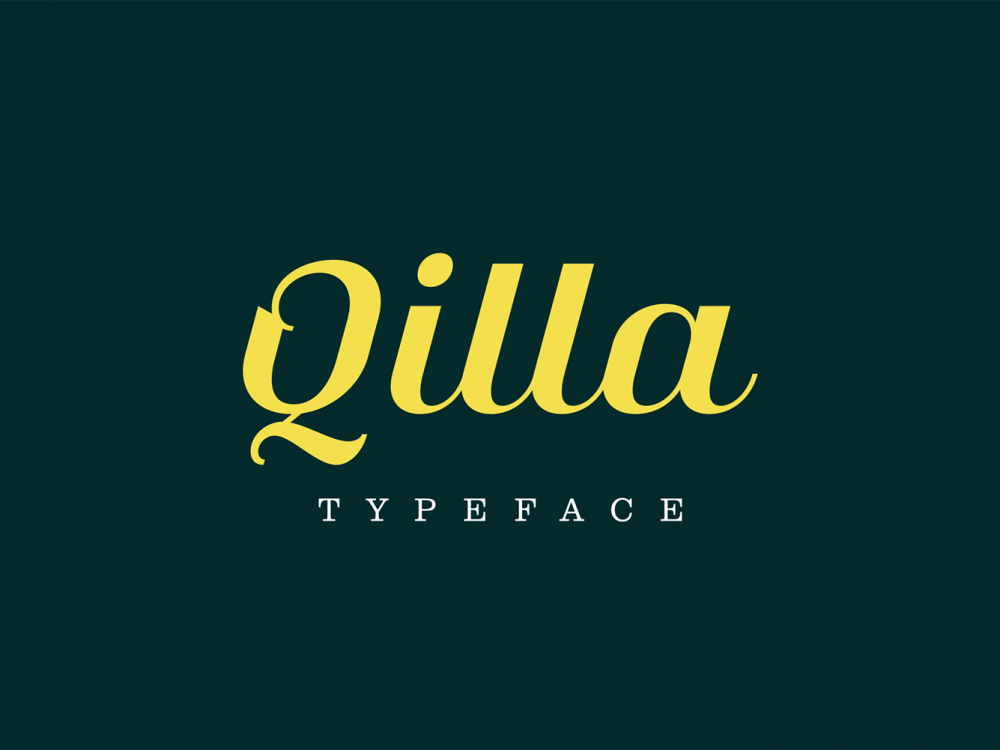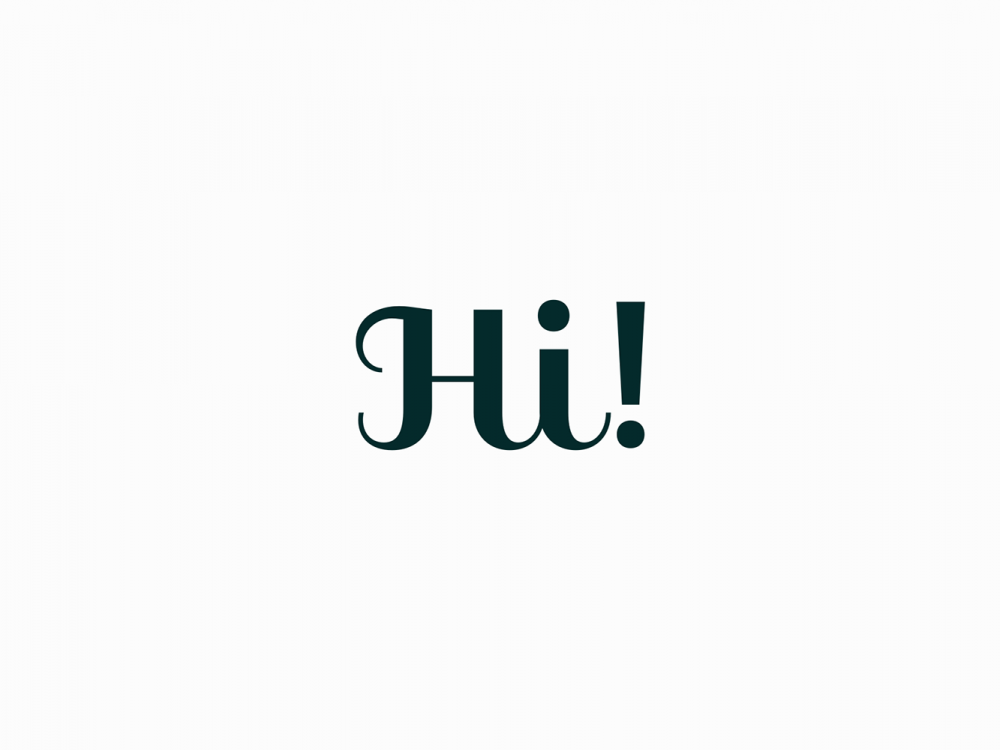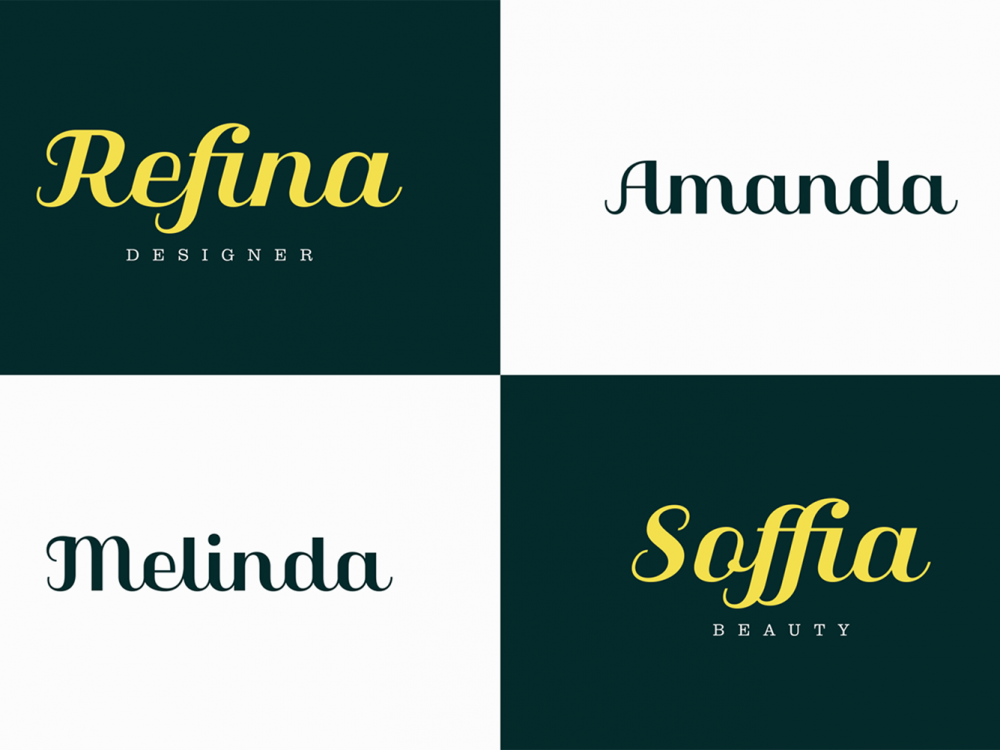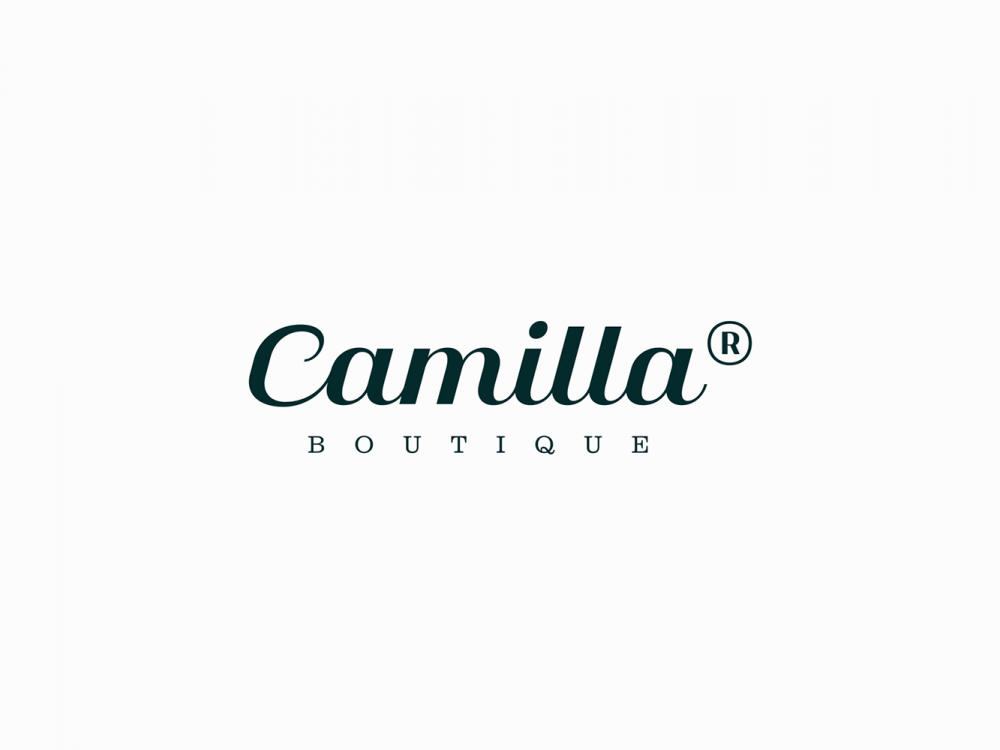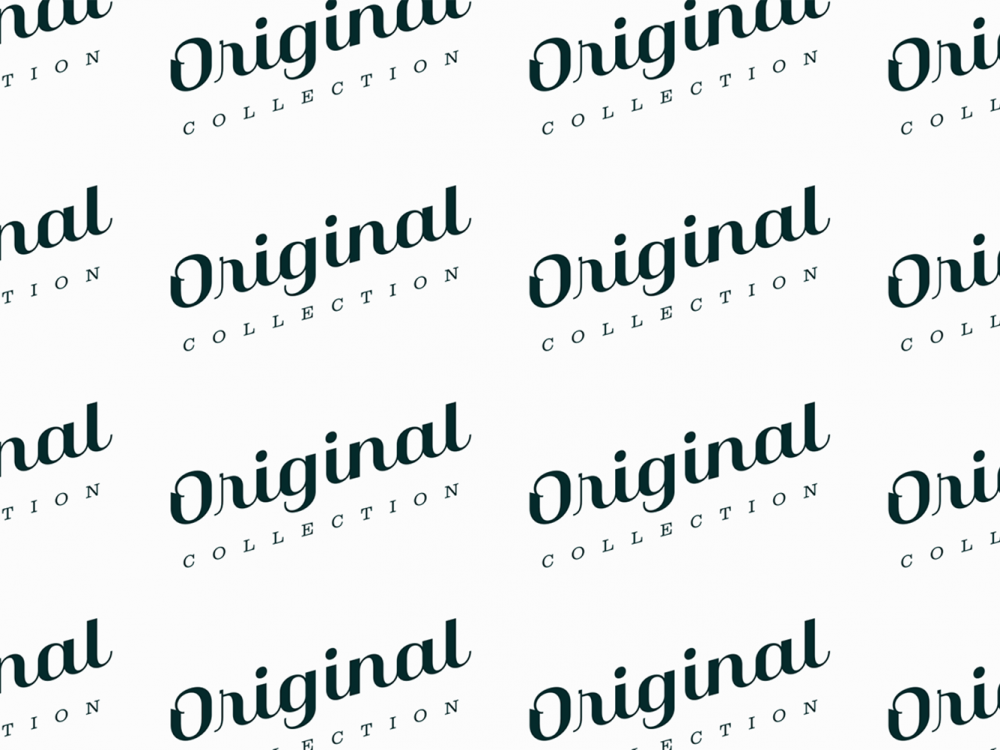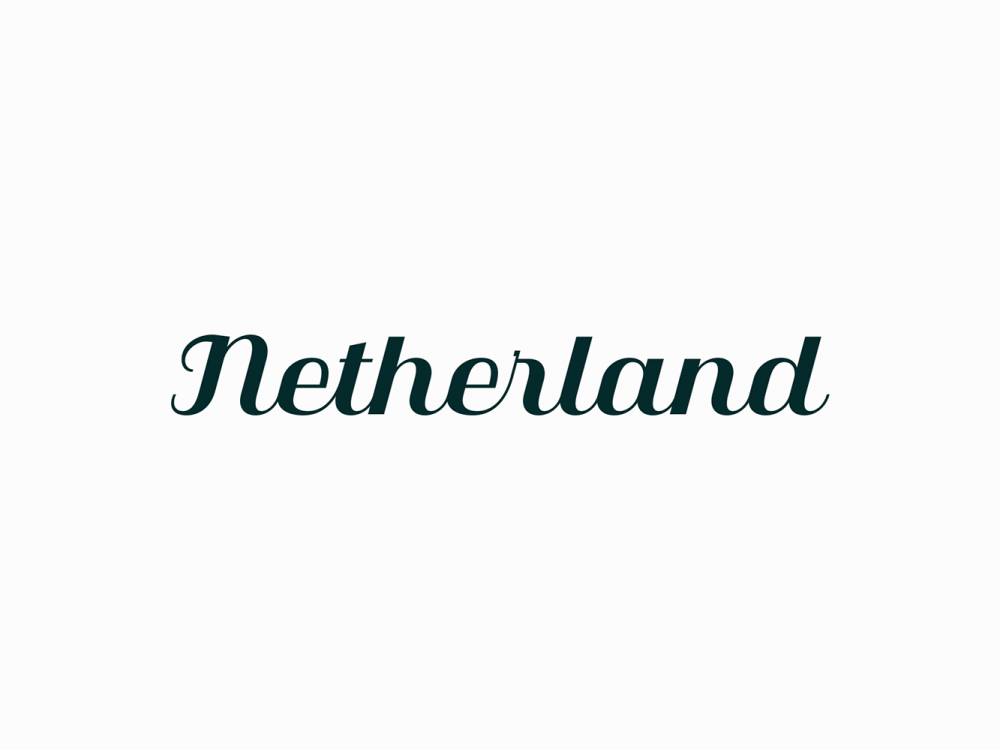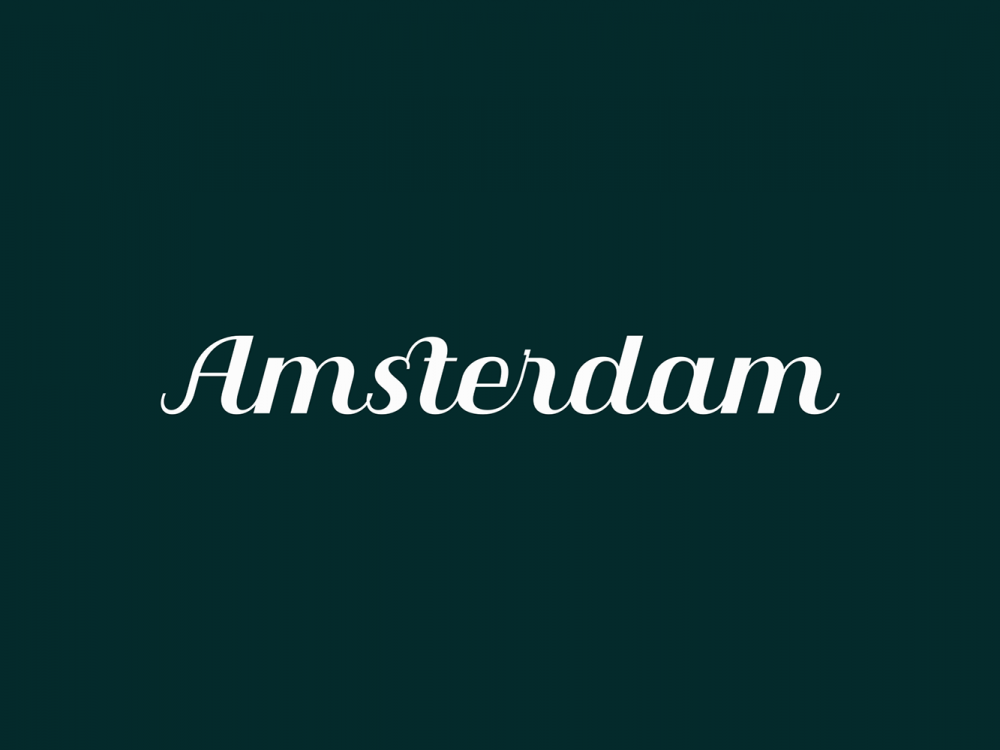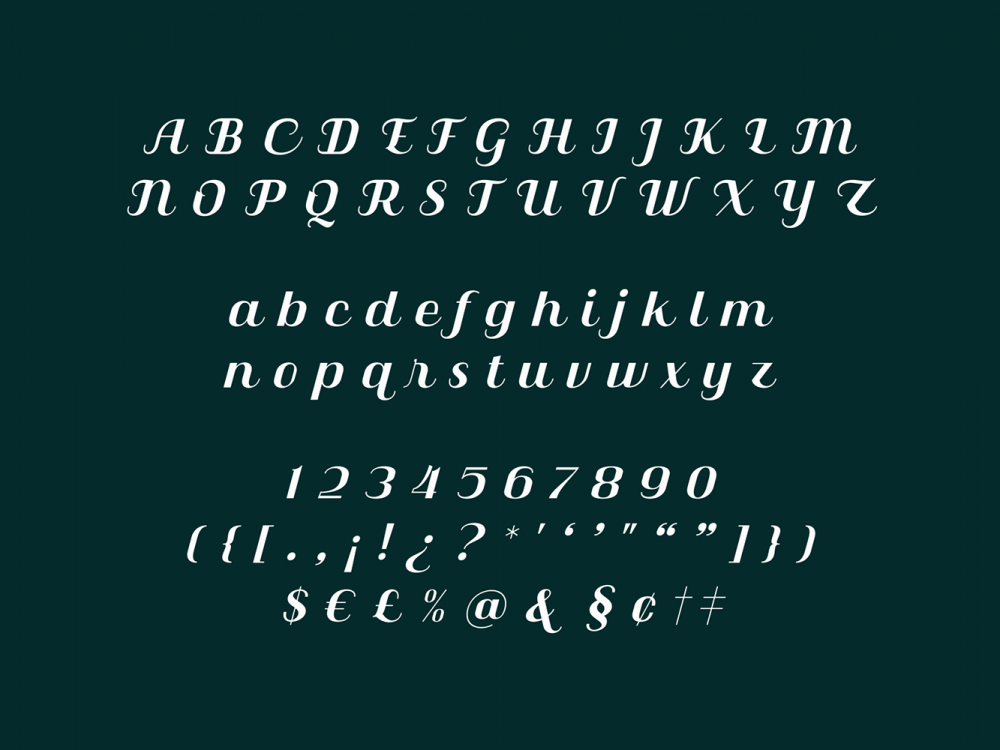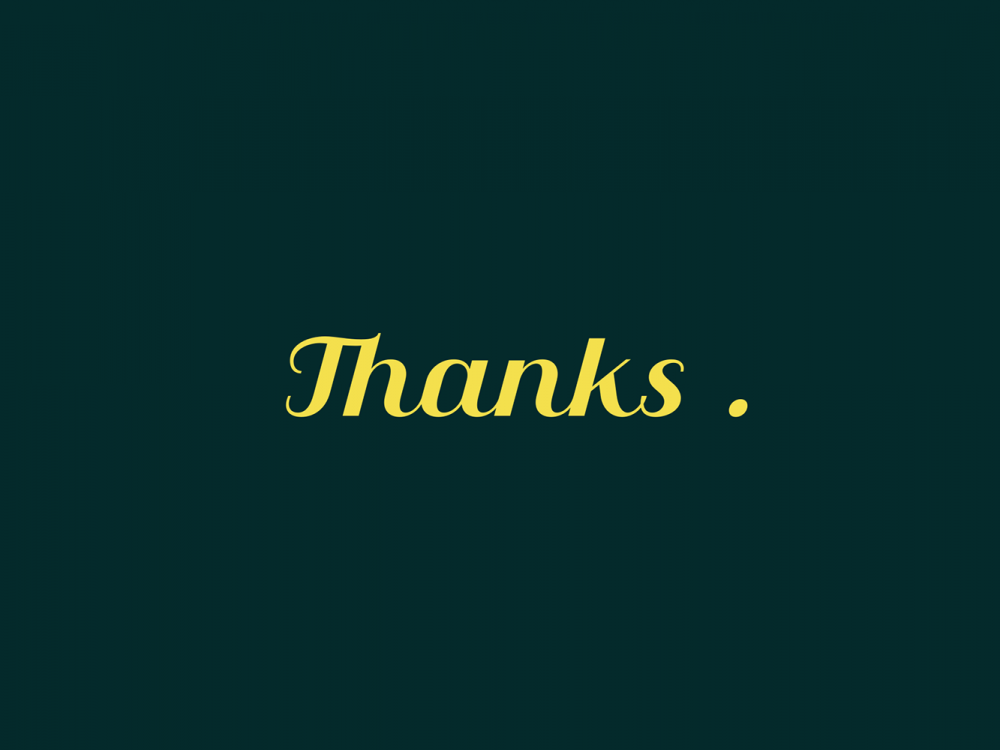
Qilla Serif Font Free Demo
Qilla Serif Font Free Demo is a beautiful font featuring an elegant style that is perfect for a variety of design projects such as wedding invitations, cards, posters, logos, prints, and more. If you want to access full features please buy the full version.